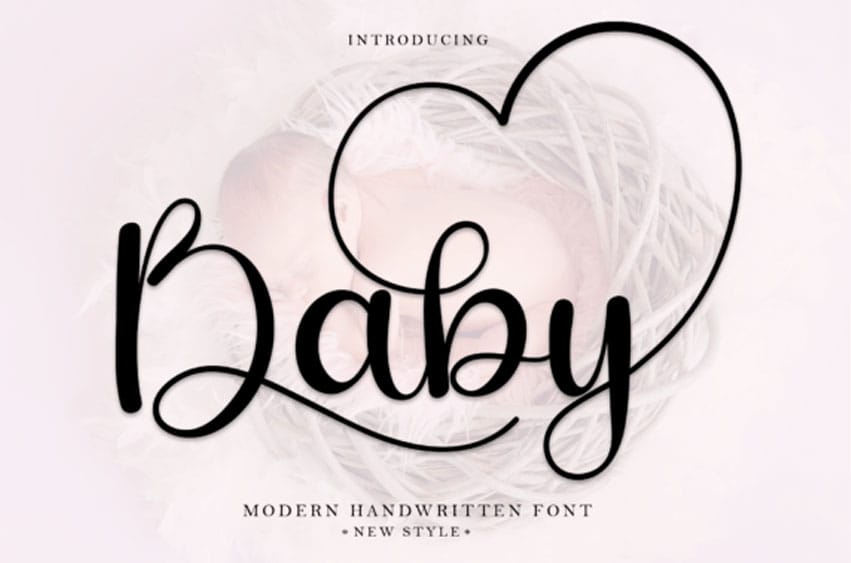
Baby Modern Font is a unique, round-lettered handwritten font that was carefully crafted to produce the desired results. This font can be used to write titles, invitations, letters, and many other types of products.